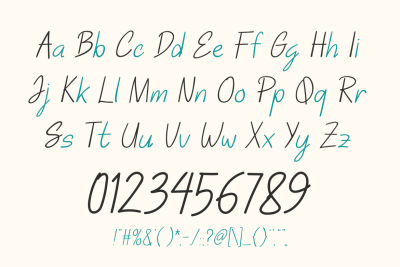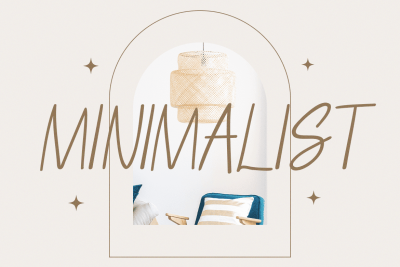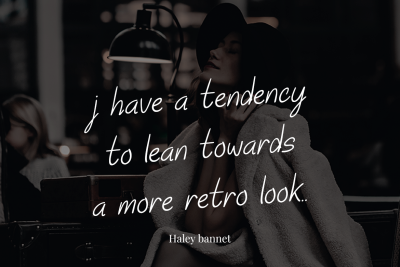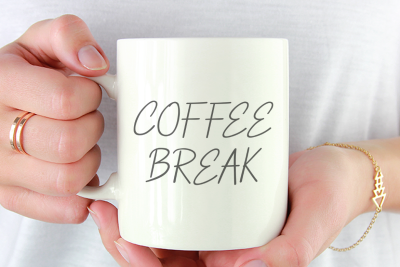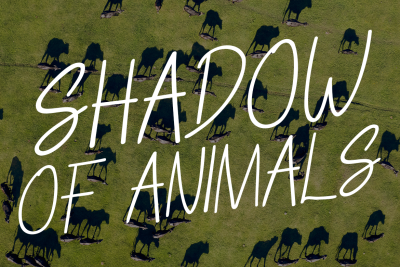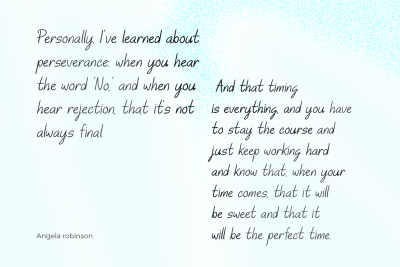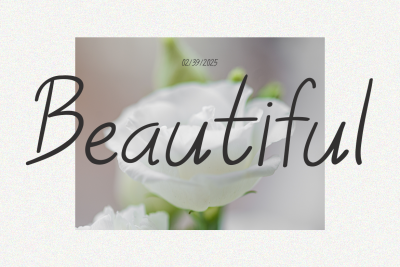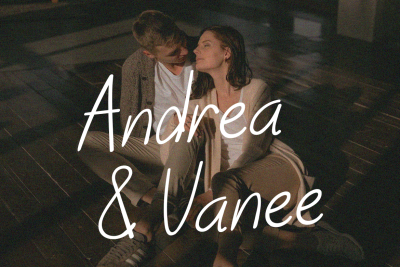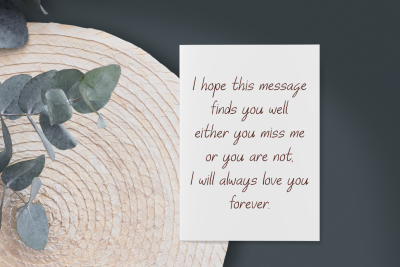
Handwriting Font Morning Dew is a beautifully crafted script font that exudes warmth, elegance, and a natural handwritten feel. Designed to capture the fluidity of a real pen stroke, this font balances smooth curves with a slightly casual aesthetic, making it perfect for both formal and informal designs. Moreover, its delicate yet expressive strokes bring a sense of authenticity and personality, ensuring that every project feels unique and handcrafted.
With its stylish, flowing letterforms, Morning Dew is ideal for designs that need a personal and artistic touch. Whether youโre creating branding materials, invitations, or social media graphics, this font enhances your message with a friendly and welcoming tone. Furthermore, the natural elegance of its script makes it easy to read while maintaining a distinctive character. Because of this, it is a versatile choice for both digital and print designs.
Who Should Use Handwriting Font Morning Dew?
Handwriting Font Morning Dew is designed for creatives and professionals who want to bring a personal, handwritten charm to their work. Therefore, itโs perfect for:
- Brand Designers & Small Businesses
- Ideal for boutique logos, beauty brands, and handmade product packaging.
- Works well on business cards, labels, and marketing materials.
- Since it creates a unique brand identity, it is perfect for stylish, personal branding.
- Wedding & Event Planners
- Beautiful for wedding invitations, RSVP cards, and event signage.
- Adds a touch of romance and elegance to any formal event.
- Because of its elegance, it works well for menus, thank-you notes, and special occasion branding.
- Content Creators & Social Media Marketers
- Enhances Instagram posts, Pinterest graphics, and YouTube thumbnails.
- Makes quotes, captions, and digital ads feel more personal and engaging.
- Additionally, it works well for lifestyle brands, bloggers, and influencers.
- Stationery Designers & Writers
- Perfect for journals, planners, greeting cards, and handwritten notes.
- Adds warmth to book covers, poetry collections, and digital printables.
- Furthermore, it creates an inviting aesthetic for personal or professional stationery.
- Cafรฉs & Restaurants
- Ideal for menu designs, chalkboard signs, and promotional materials.
- Complements organic, homemade, and artisanal food brands.
- As a result, it gives off a welcoming and cozy atmosphere for coffee shops and bakeries.
If youโre looking for a handwriting font that blends elegance with personality, Morning Dew is the perfect choice. Its effortless beauty and versatility make it a must-have for designers, businesses, and creatives who want to stand out with a personal touch.